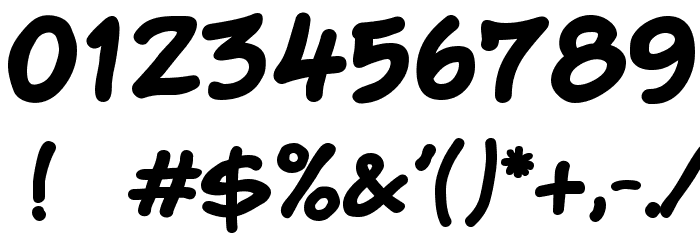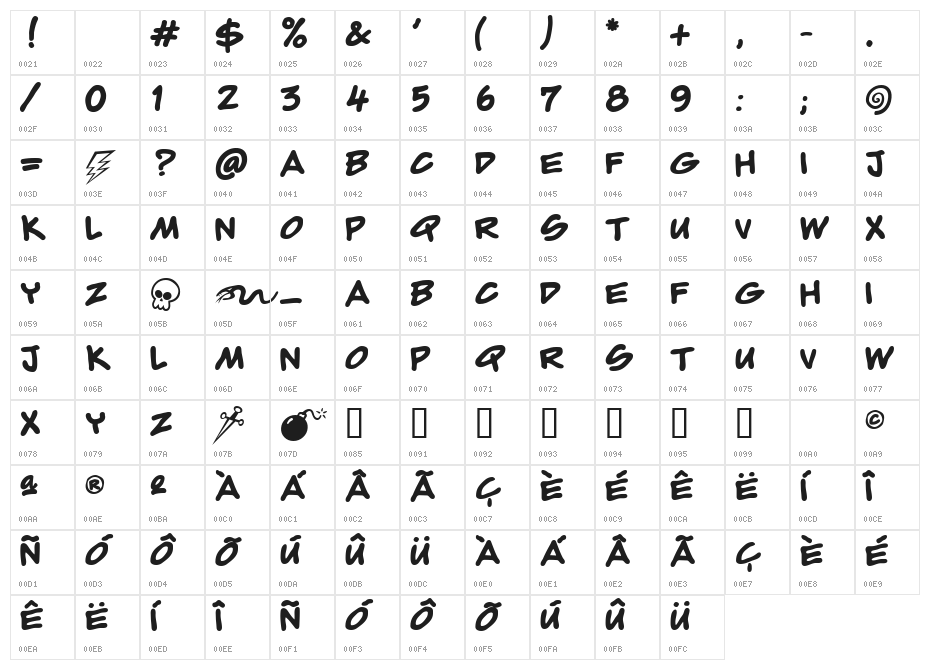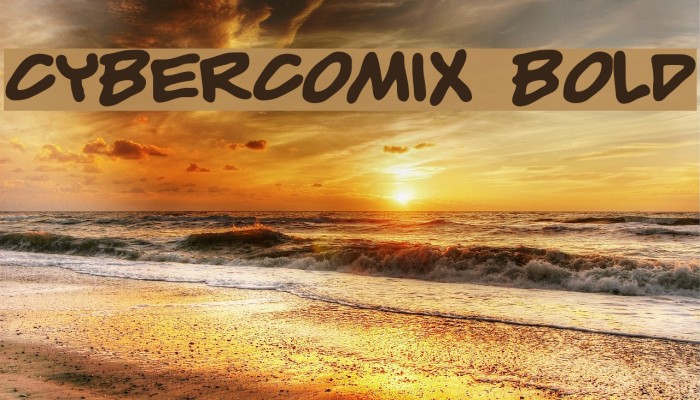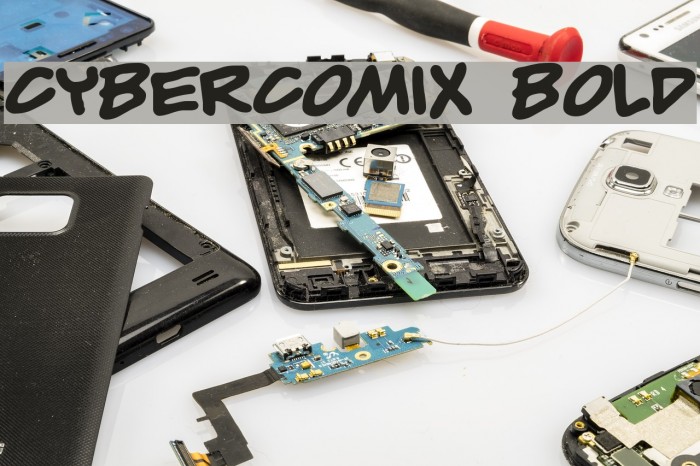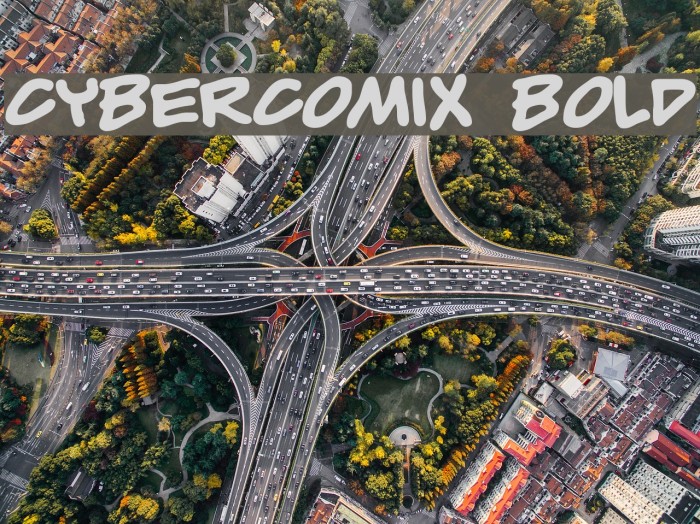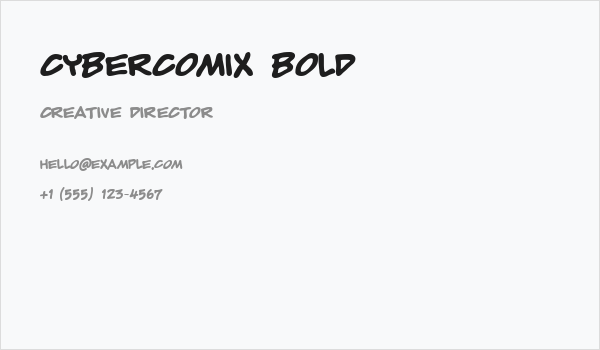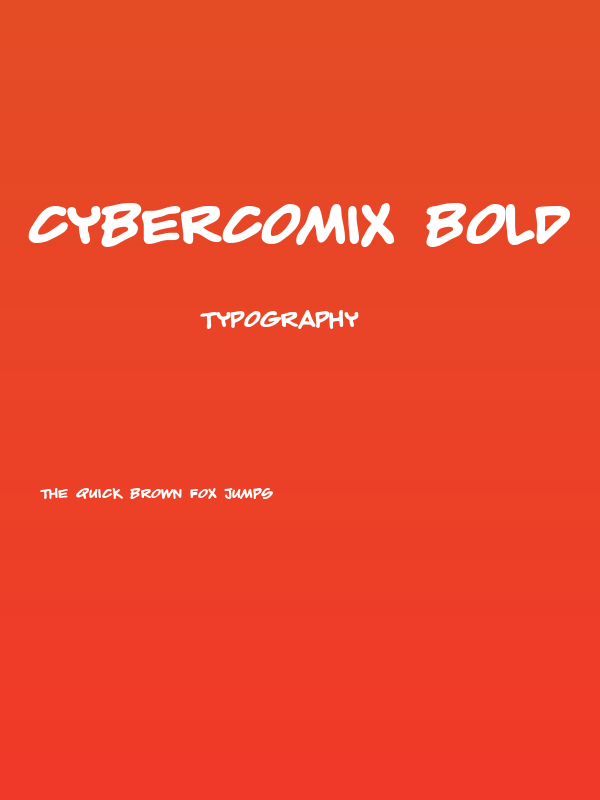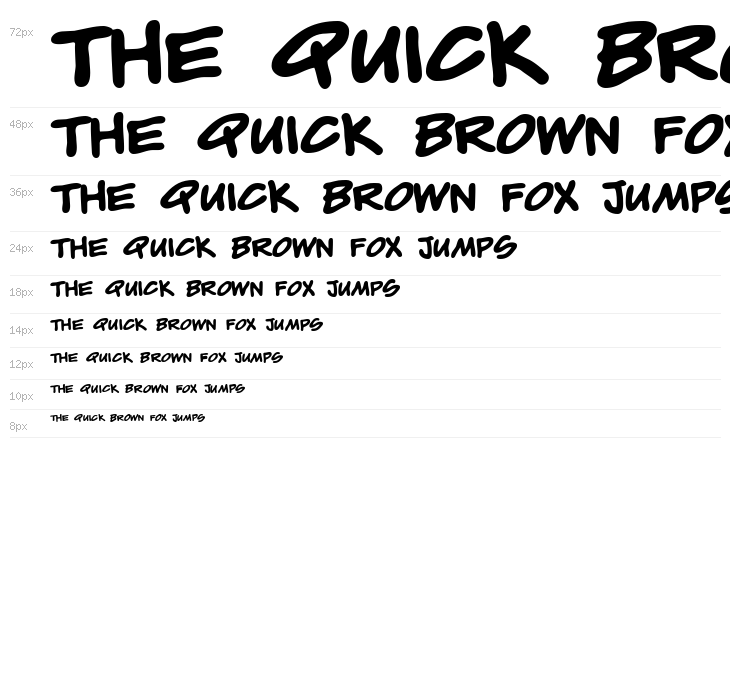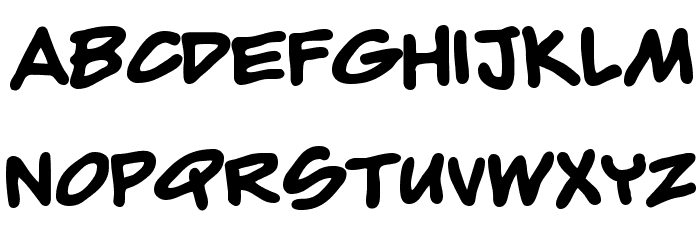
CyberComix Bold Font
CyberComix Bold Description
This bold, playful font features a comic-inspired style with thick, rounded strokes and a slightly informal appearance. The characters are uniformly bold, with a consistent weight that gives them a strong presence. The uppercase and lowercase letters maintain a cohesive look, with smooth curves and a slightly exaggerated form that enhances readability while adding a touch of whimsy. The numerals and special characters follow the same design principles, ensuring a harmonious overall appearance. This font is ideal for projects that require a fun and engaging aesthetic.
| Overall Style | Playful, Comic |
| Proposed Projects | Perfect for comic books, children's books, playful branding, and posters. |